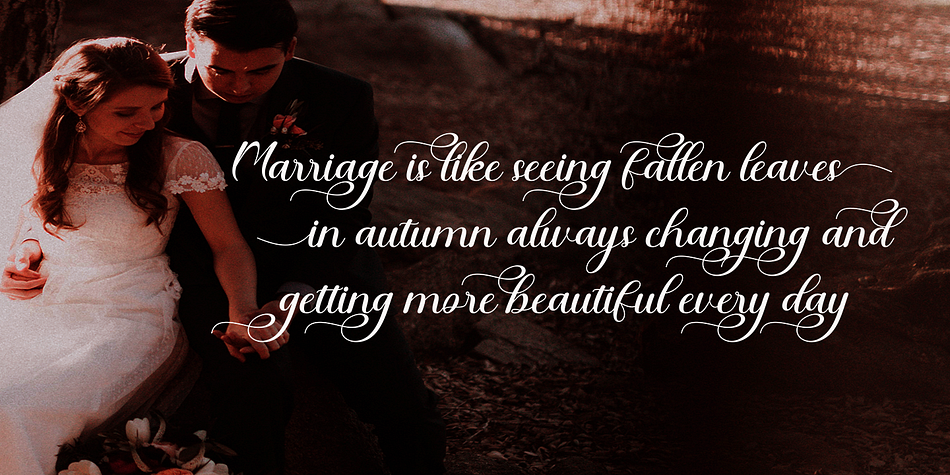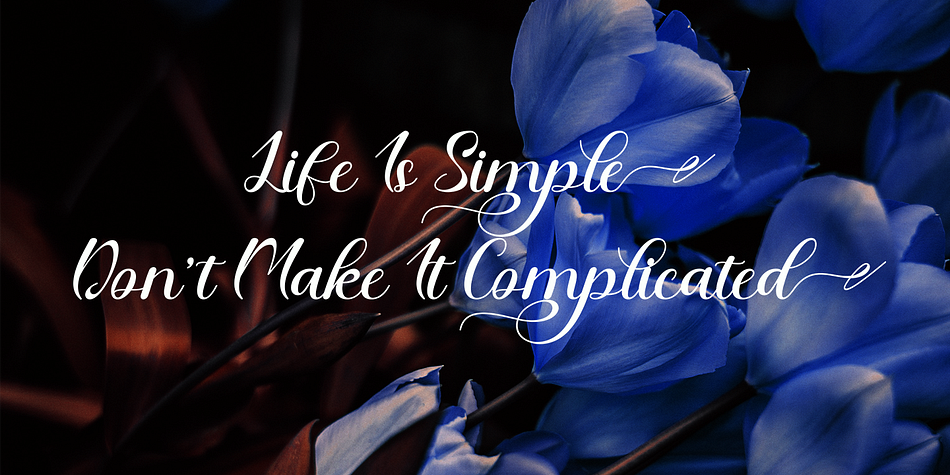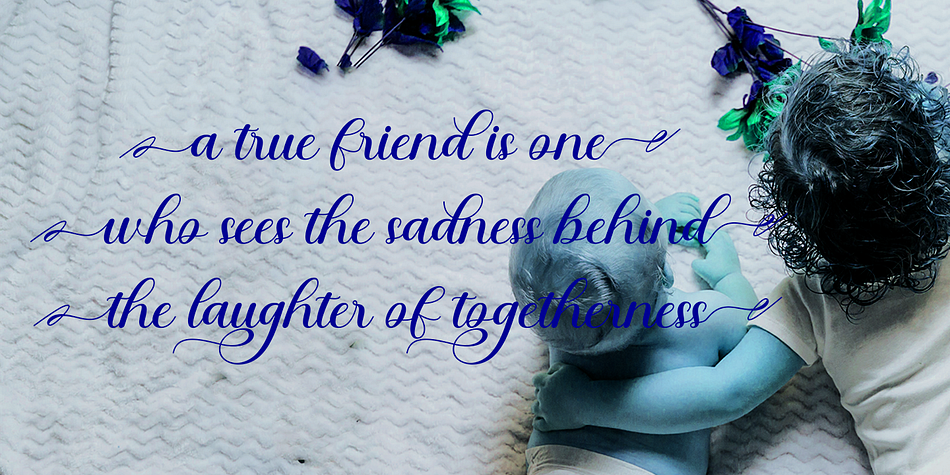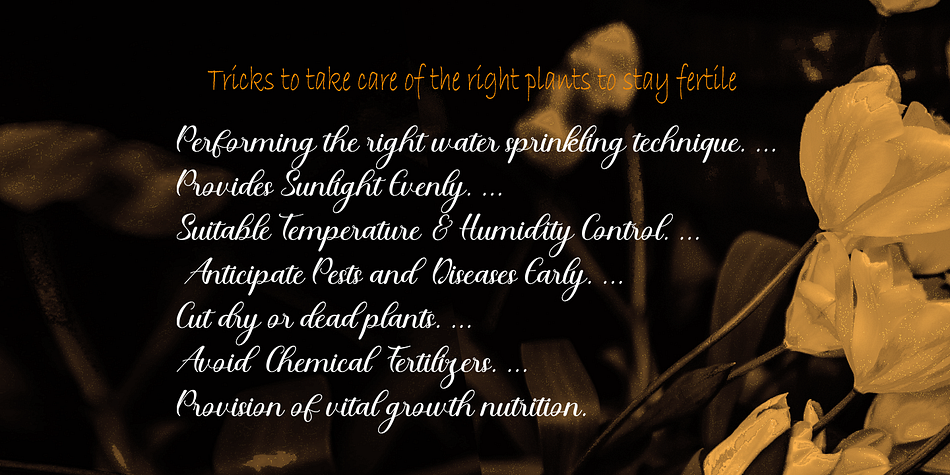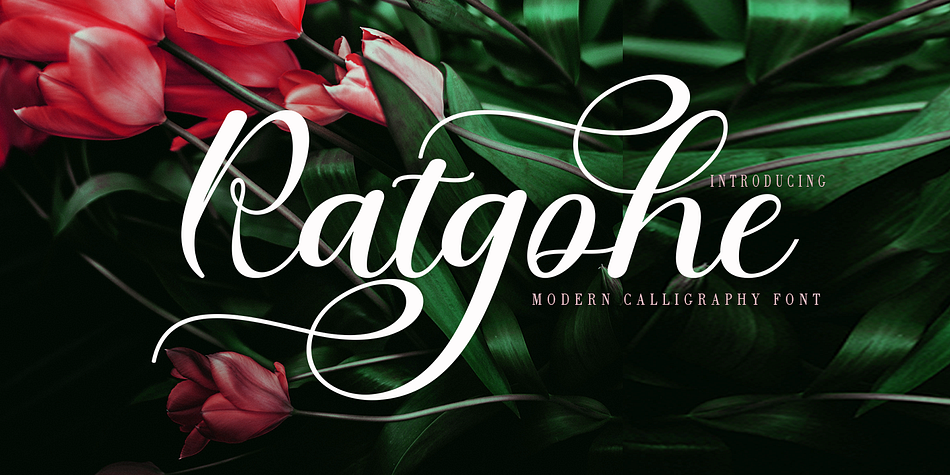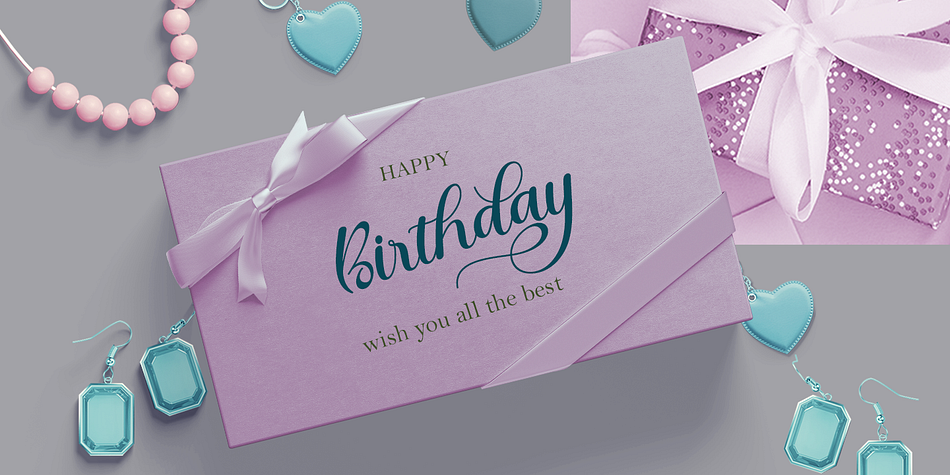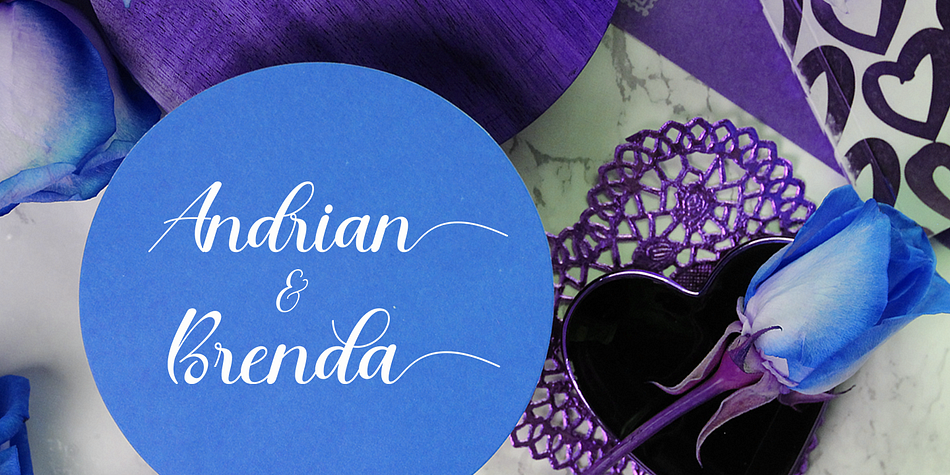
Ratgohe
Ratgohe is a brush script font family published by Gatype.
Ratgohe is an elegant script font with a contemporary atmosphere and impeccable shapes, inspired by timeless classic calligraphy. Neither too thin nor too thick, balanced and varied, Ratgohe is designed to enhance the beauty of your project.
These designs are used for branding, web and editorial design, print, crafts, quotes,It’s great for logos, wedding invitations, romantic cards, labels, packaging, name spelling and more.
Ratgohe includes OpenType style alternatives, ligatures, and International support for most Western Languages.